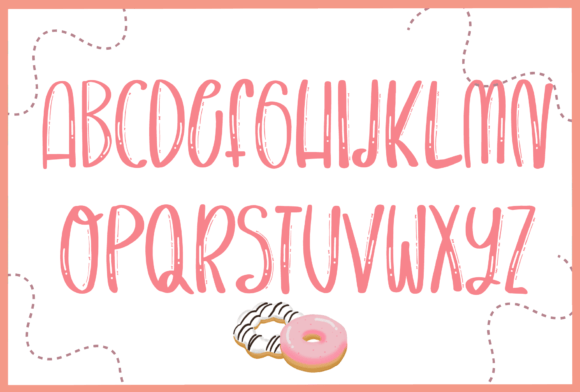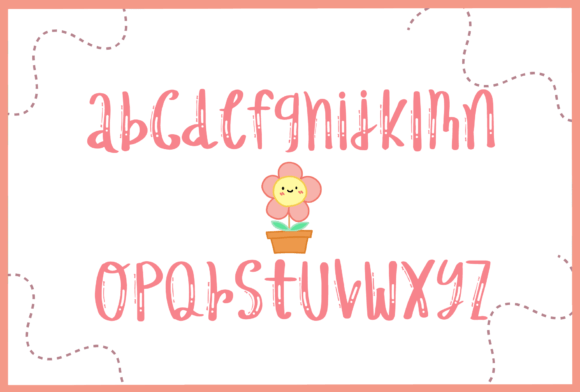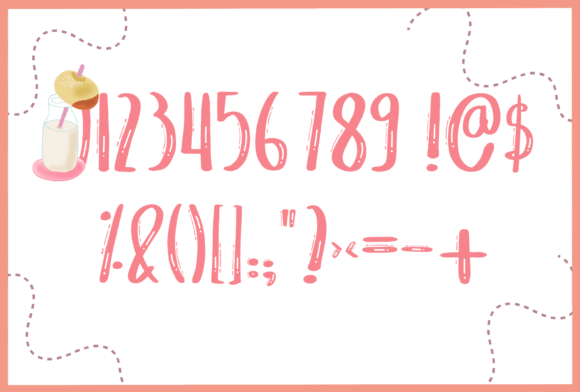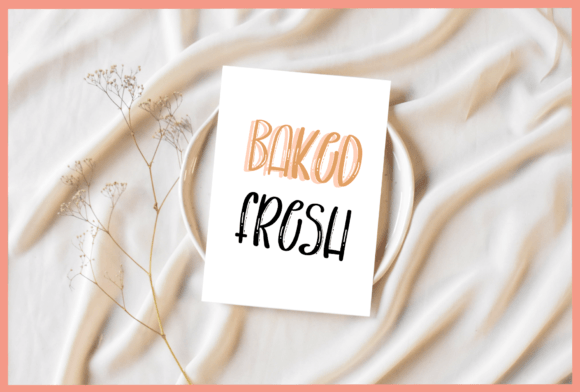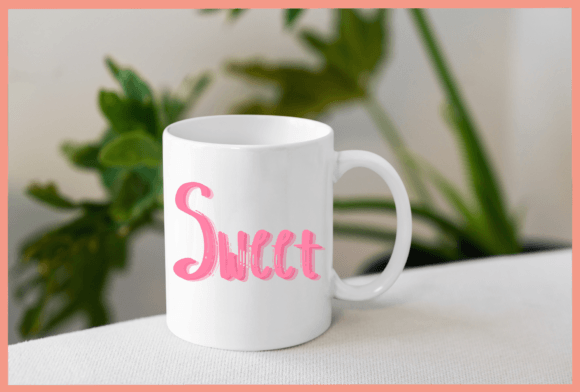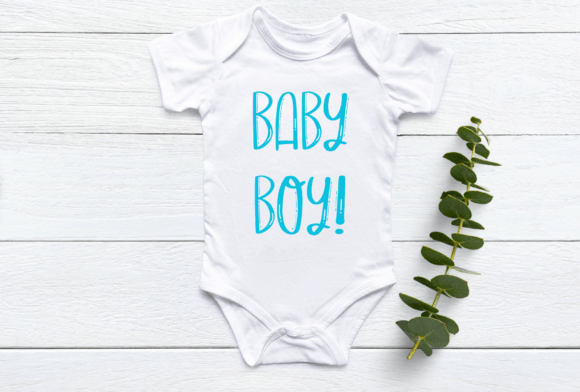
The Perfect Pen Stroke: Discovering the Magic of Barbie Font
Who among us hasn’t scribbled out a quick idea on a sticky note or doodled in the margins of a notebook? It’s those spontaneous moments of creativity that often spark the most innovative ideas. For designers, finding the right font can be just as magical. Imagine being able to capture the whimsy and charm of a child’s handwriting in a font that’s both playful and professional.
Enter the Barbie Font, a delightful handwriting font that’s as cute as it is versatile. Perfect for teaching, decorating presentations, or adding a touch of personality to social media posts, this font is a treasure trove of creative possibilities. With its simple style and endearing charm, the Barbie Font is a valuable addition to any designer’s toolkit.
Key Features of Barbie Font
- Font Family: The Barbie Font is a custom-designed font, created specifically for the Barbie brand. It is a sans-serif font with a distinctive and playful feel.
- Unique Characteristics: The Barbie Font features a distinctive, rounded sans-serif design with a high x-height and a unique letterform style that is instantly recognizable as part of the Barbie brand.
Barbie Font Review
I must say, I was excited to dive into the Barbie font, and while it’s not without its charm, it has its share of highs and lows. Let’s start with what works well ✨:
- The font’s playful, whimsical feel perfectly captures the essence of the iconic Barbie brand.
- The bold, vibrant colors used throughout the font are sure to grab attention and make a statement.
- The font’s rounded edges and smooth curves create a friendly, approachable vibe that’s perfect for feminine and youthful designs.
Now, let’s talk about some limitations ⚠️:
- The font may be too cutesy or over-the-top for more serious or professional designs, which could limit its versatility.
- The bold, block-letter style may not be suitable for smaller text sizes or intricate typography, as it can appear cluttered or difficult to read.
- The font’s design may not be easily adaptable to different languages or character sets, which could be a limitation for global branding or marketing efforts.
Overall, I’d say the Barbie font is a fun, eye-catching choice for designs that require a playful, feminine touch. However, it may not be the best fit for every project or brand identity.
Tips for Getting the Most Out of the Barbie Font
Use the Barbie Font to create eye-catching titles and headings.
Combine the font with bright colors and bold graphics for a playful and feminine look.
Experiment with different font sizes and styles to add depth and visual interest to your designs.
The Barbie Font is ideal for:
Children’s party invitations and decorations.
Feminine branding and marketing materials.
Playful and whimsical designs, such as cartoon characters and illustrations.
Alternatives to “Barbie Font” for Designers
Great Vibes is a beautiful, elegant script font that works well for creating a whimsical and romantic atmosphere. It’s perfect for wedding invitations, greeting cards, and other special occasions. Great Vibes is a more sophisticated alternative to Barbie Font, with a more refined and polished look.